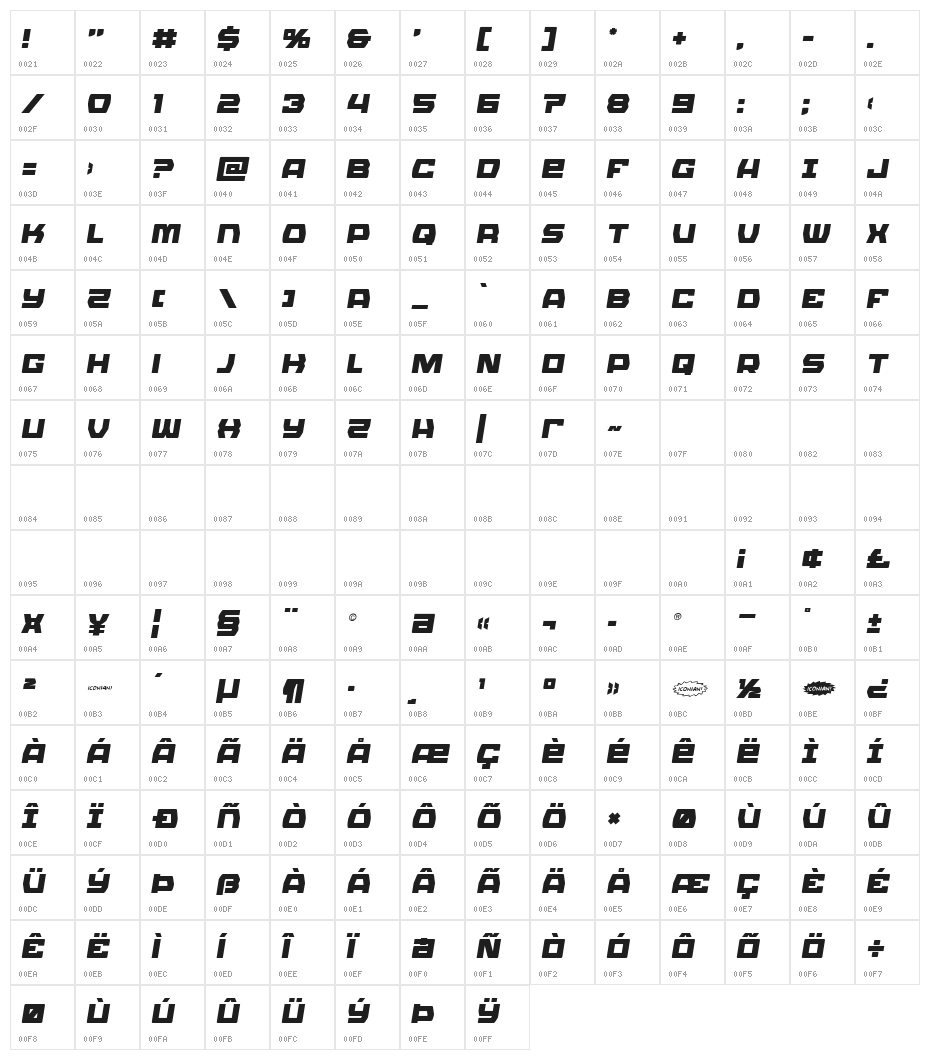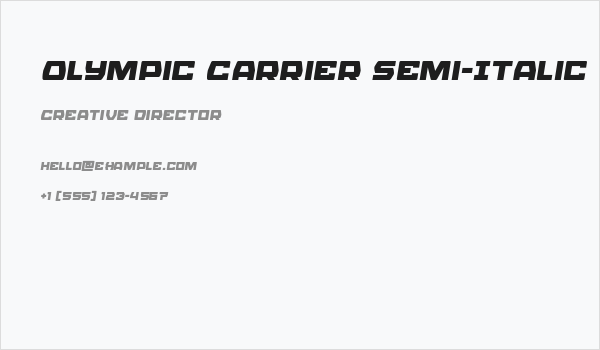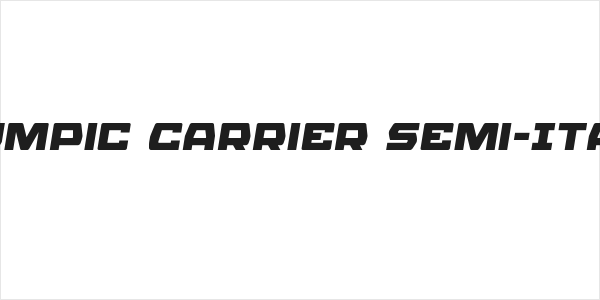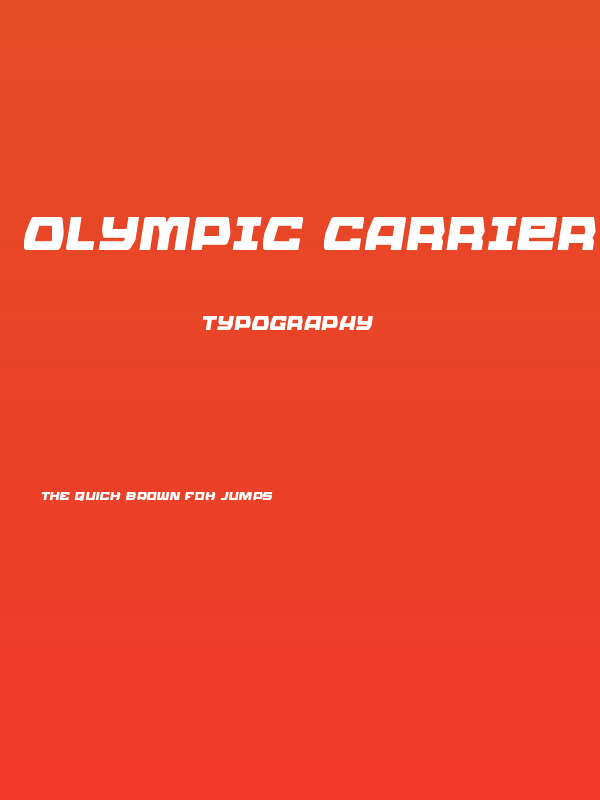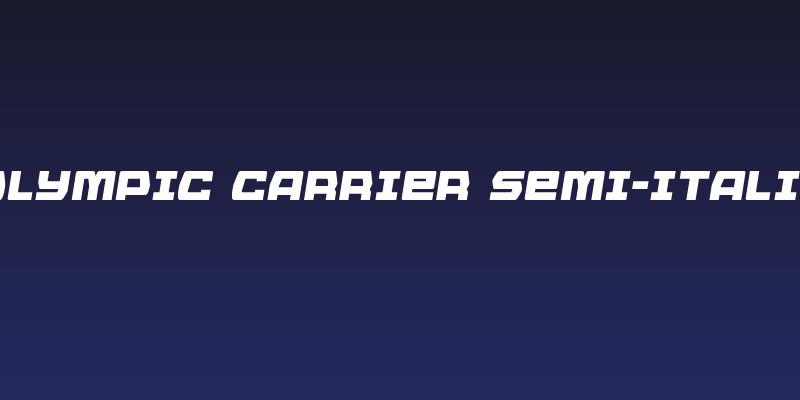
Olympic Carrier Semi-Italic Font
Olympic Carrier Semi-Italic Description
This font features a bold and dynamic design with a semi-italic slant, giving it a sense of motion and energy. The characters are wide and robust, with a slightly condensed appearance that maintains readability while conveying strength. The angular cuts and sharp edges add a modern and futuristic feel, making it suitable for attention-grabbing headlines or branding. The numbers and special characters follow the same bold and angular style, ensuring consistency across all text elements.
| Proposed Projects | Ideal for sports branding, dynamic posters, and futuristic designs. |